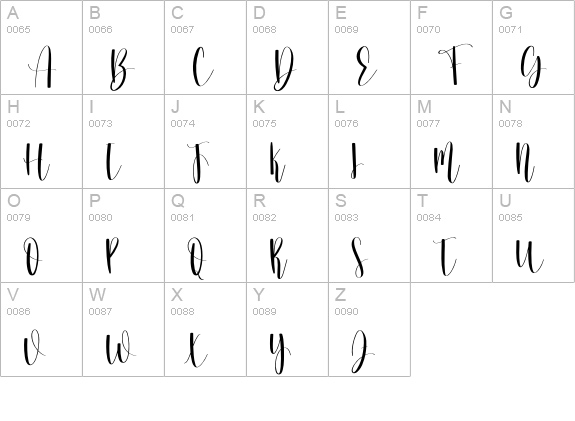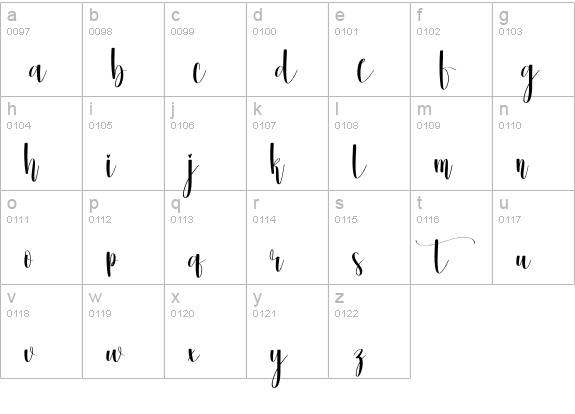
Mandala Handmade Font Details
Introducing Mandala Handmade font, a captivating and intricate typeface that embodies the beauty of handmade craftsmanship. Each character is meticulously designed with delicate swirls and ornate details, reminiscent of traditional mandala patterns. This unique font exudes a sense of elegance and sophistication, making it perfect for adding a touch of artistic flair to your projects.